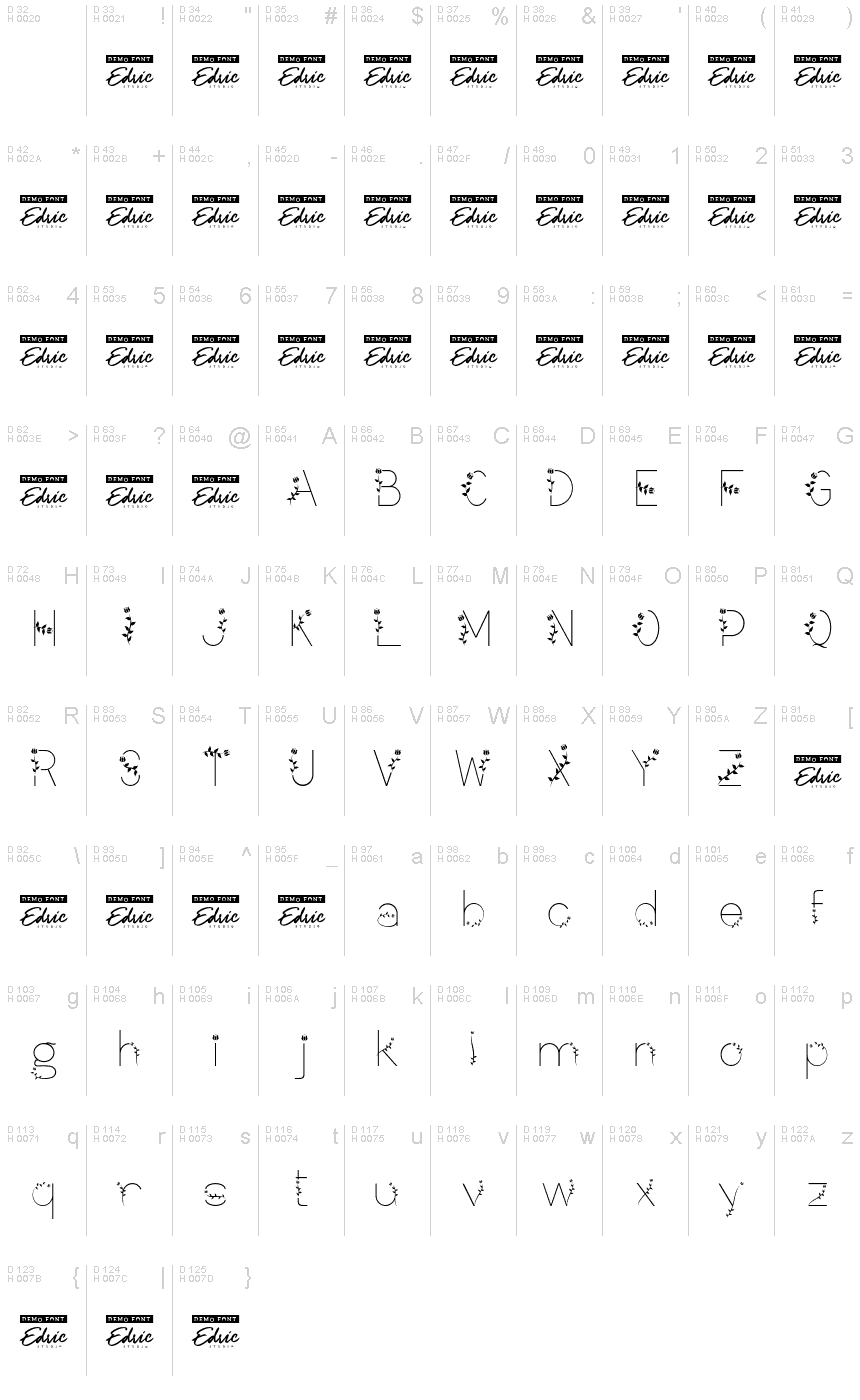
Flower Leaf is a stunning display font designed by Edric Studio. Its decorative style and light weight make it the perfect choice for projects that require an elegant and feminine touch. The intricate details of each letter are reminiscent of delicate flower petals and leaves, adding a natural and organic feel to any design. From wedding invitations to branding materials for beauty products, Flower Leaf is versatile enough to suit a variety of projects. Its unique charm will captivate your audience and leave a lasting impression. Elevate your designs with the beautiful Flower Leaf typeface today!
Flower Leaf Demo